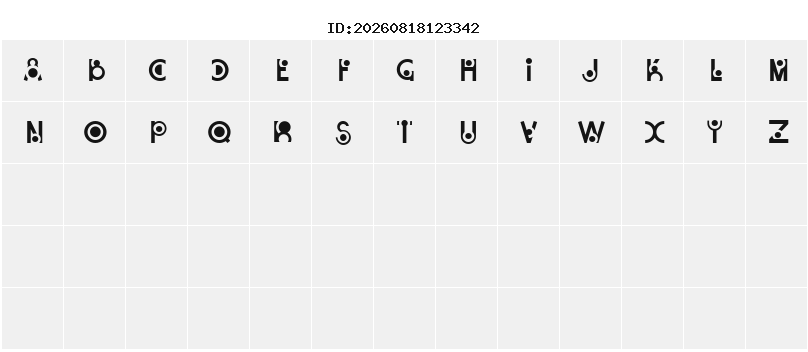
Snail Preview
• Font Name: Snail
• Full Font Name: Snail
About Snail.ttf
Snail.ttf is a modern, elegant sans-serif font designed for ultimate readability and visual harmony. Perfect for branding, headlines, web design, and print materials.